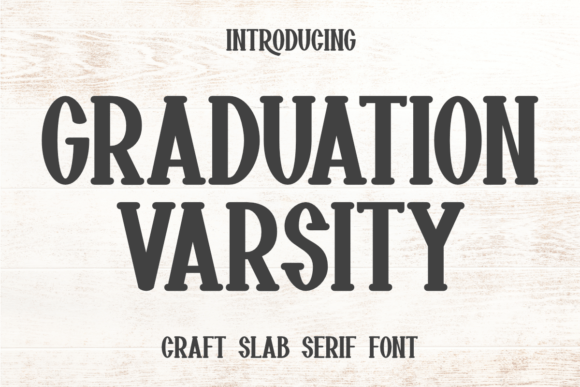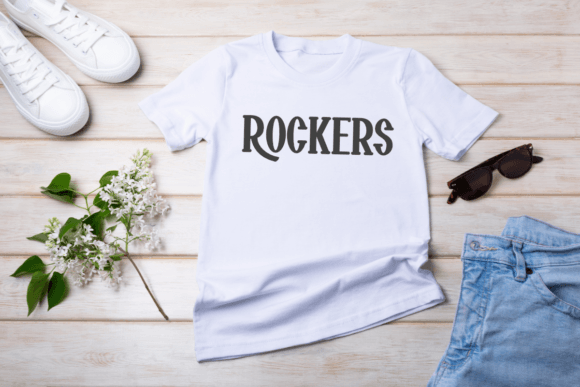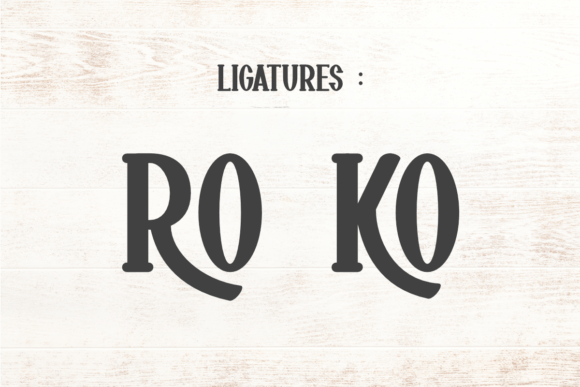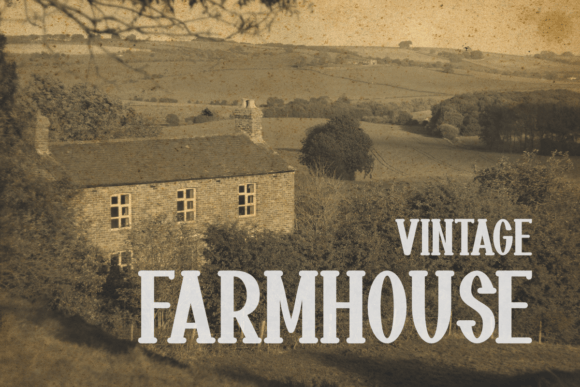
Graduation Varsity Font
About the Graduation Varsity Font
The wait is over! The incredible Graduation Varsity Font is now available for your design toolkit. Graduation Varsity is a bold and charming slab serif font. Whatever the topic, this font will be a wonderful asset to your font library, as it has the potential to enhance any creation.
Graduation Varsity excels in headlines, short titles, and branding applications where a bold, confident statement is desired. Its charm works well for posters, packaging, and even short social media captions. However, its slab serifs and bold weight make it less suitable for body text or lengthy paragraphs; readability suffers at smaller sizes. Avoid using it in user interfaces (UI) or situations requiring high legibility in extended text.
The font’s core personality is bold and playful, yet retains a touch of classic elegance. This makes it ideal for brands targeting a younger audience or those wanting to convey a sense of spirited professionalism.
To complement its personality, consider pairing Graduation Varsity with a clean sans-serif like Open Sans for body copy, or a more delicate script font such as Great Vibes for secondary text elements, adding a touch of whimsy. A geometric sans-serif like Montserrat could also provide a modern counterpoint for a balanced and sophisticated design.
Graduation Varsity Font Usage Examples
Graduation Varsity Font Example